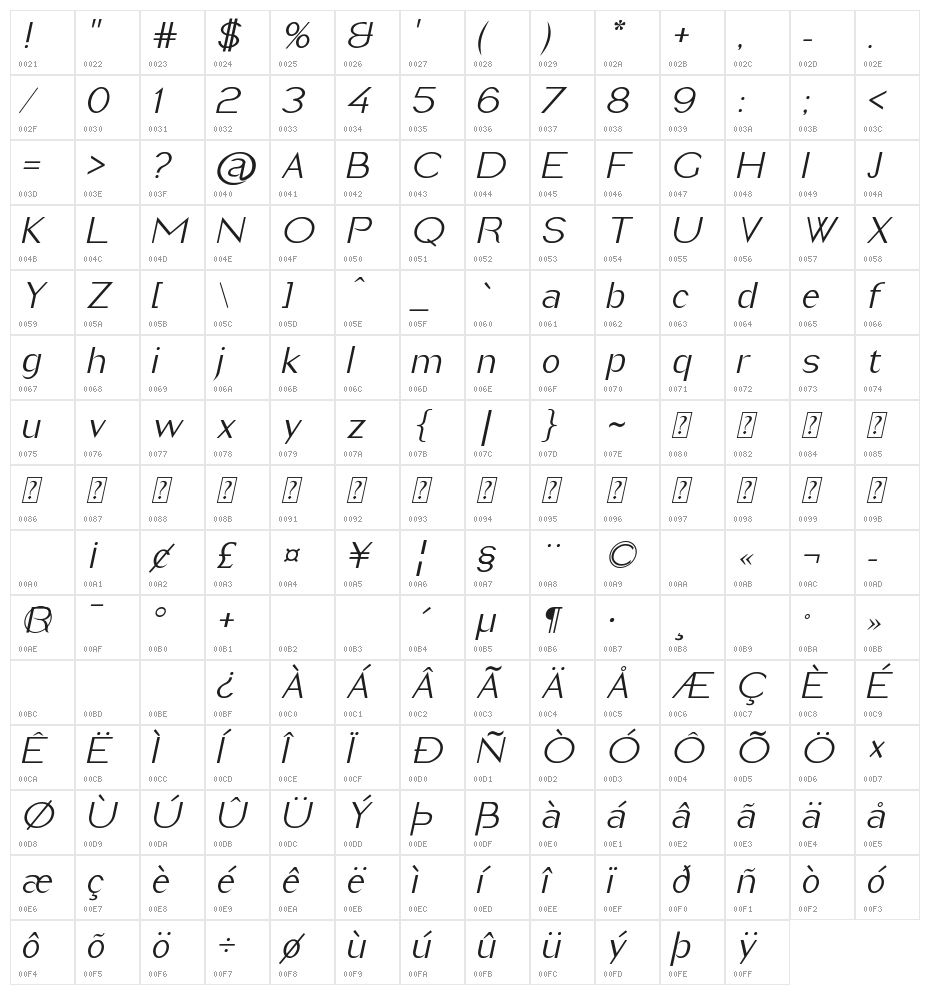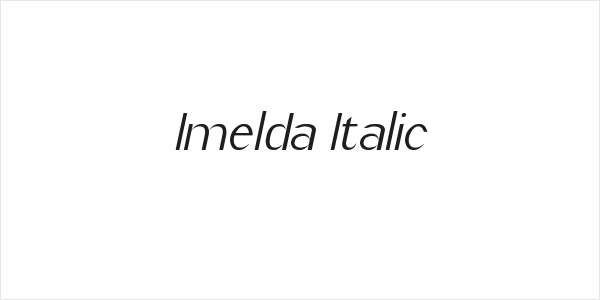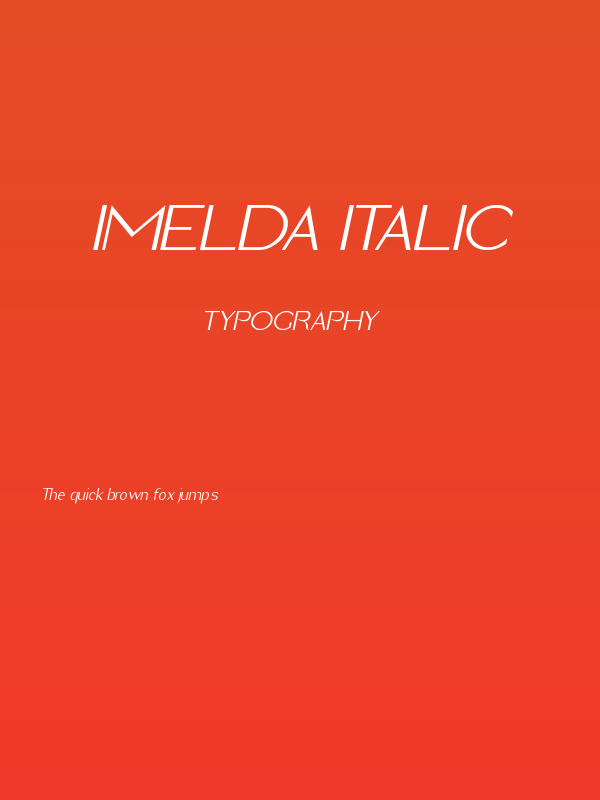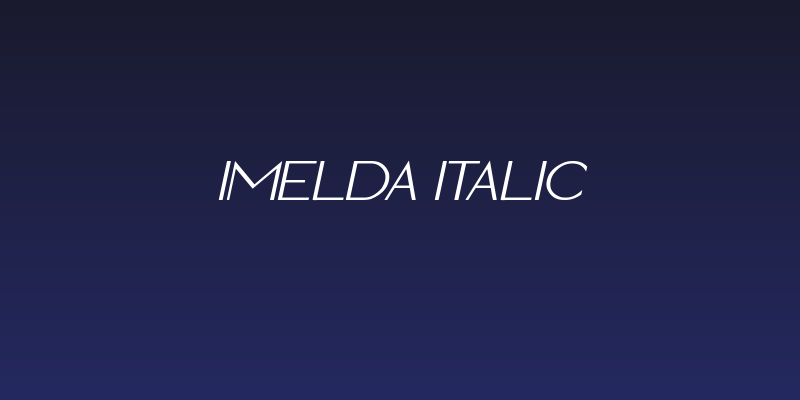
Imelda Italic Font
Imelda Italic Description
This font features a sleek and modern italic style, characterized by its smooth, flowing lines and slightly condensed letterforms. The uppercase letters have a distinct slant, giving a sense of motion and elegance. The lowercase letters maintain a consistent style, with rounded edges and a harmonious balance between curves and straight lines. The numerals are clear and legible, with a uniform height that complements the overall design. Special characters are well-integrated, maintaining the font's cohesive aesthetic. This font's design is both stylish and functional, making it suitable for a variety of applications.
Proposed ProjectsIdeal for branding, editorial design, fashion magazines, and modern web design projects.